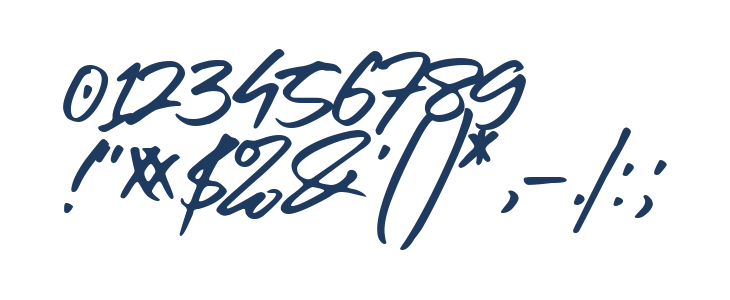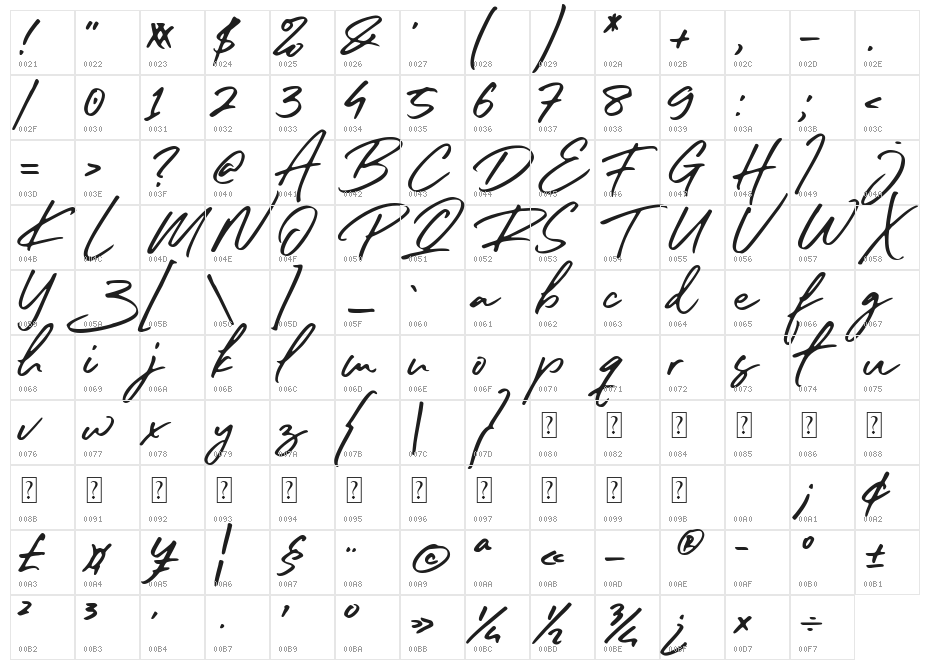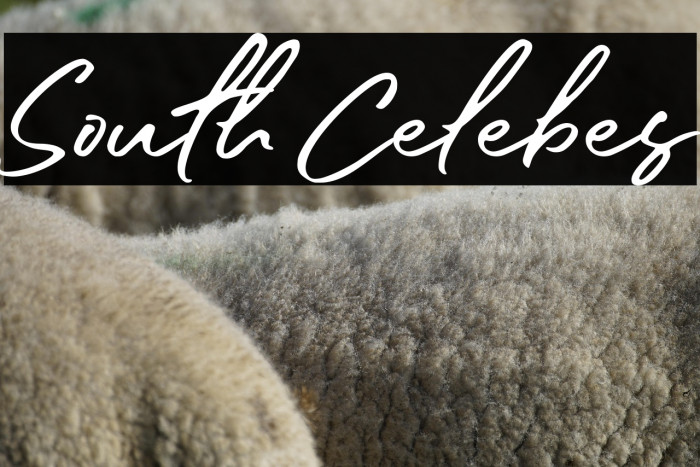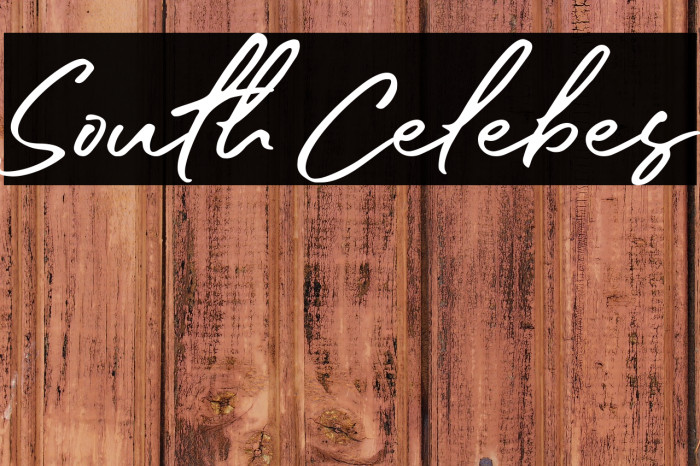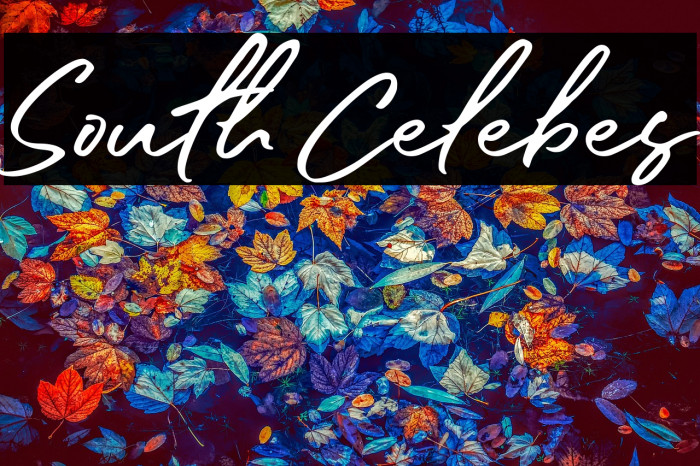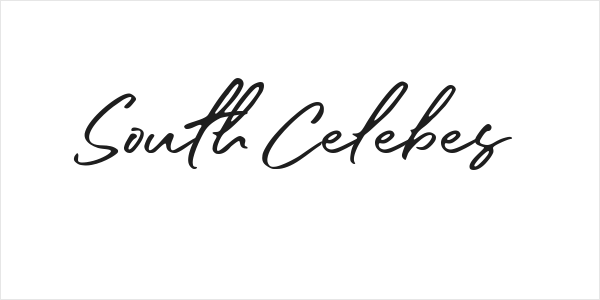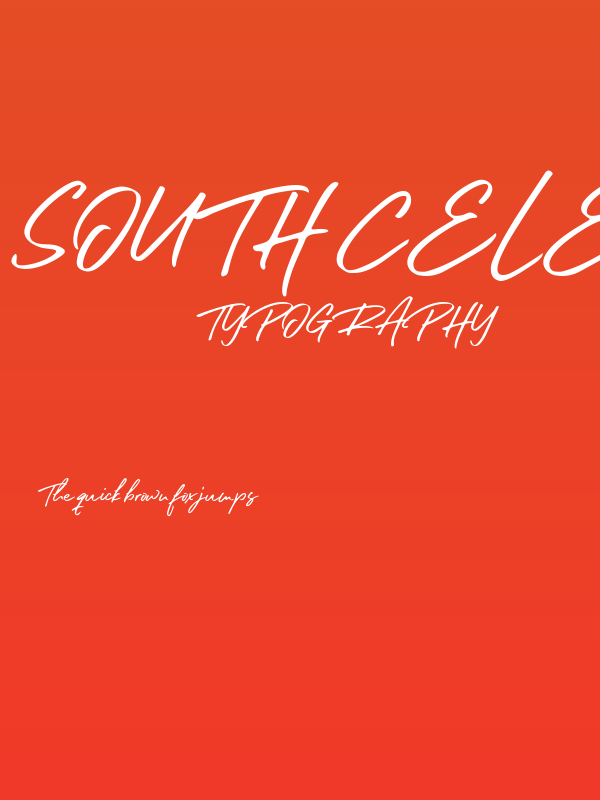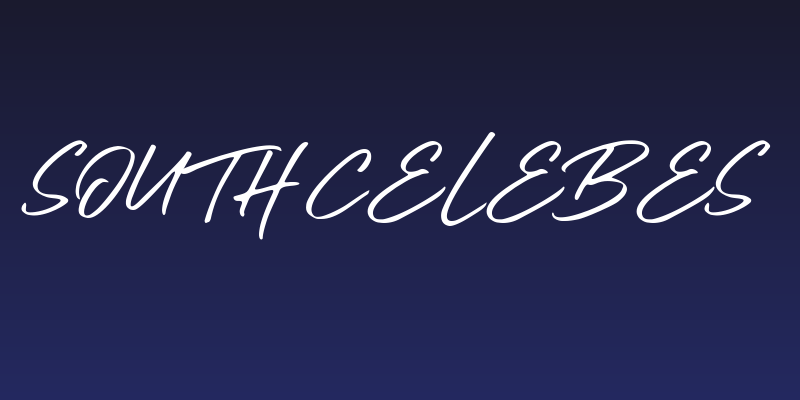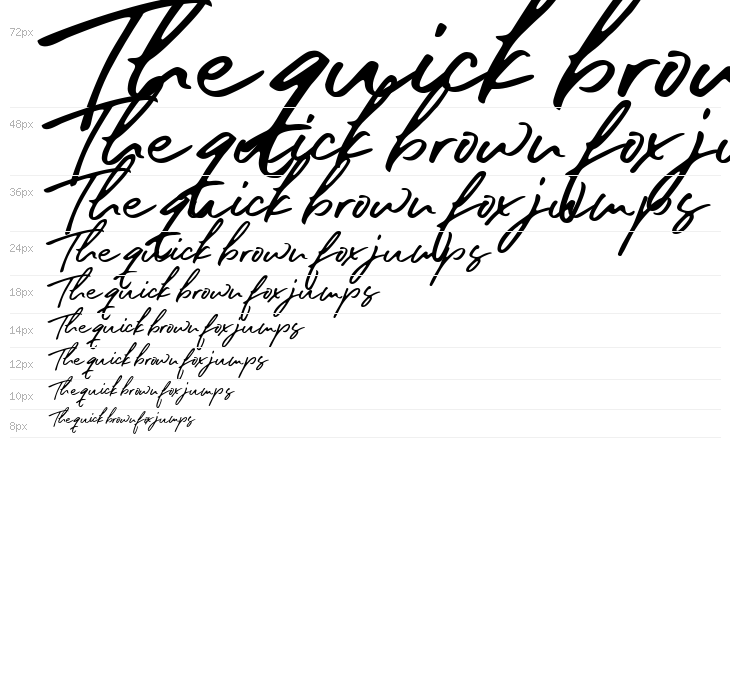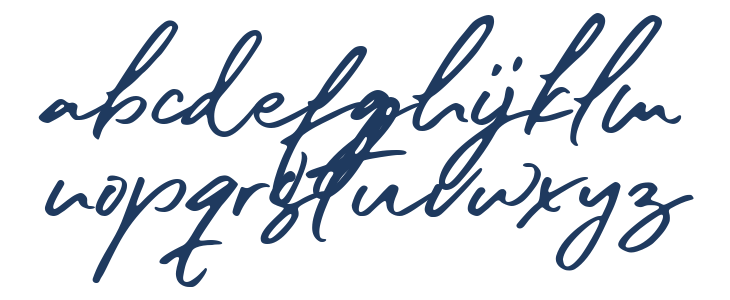
South Celebes Font
South Celebes Description
This font exudes a dynamic and expressive handwritten style, characterized by its fluid and cursive strokes. The uppercase letters are bold and slightly slanted, giving a sense of movement and energy. The lowercase letters maintain a consistent flow, with some characters featuring loops and flourishes that add to the overall elegance. Numbers are bold and clear, matching the style of the letters. Special characters are integrated seamlessly, maintaining the handwritten aesthetic. The font's overall appearance is both artistic and legible, making it suitable for creative and personal projects.